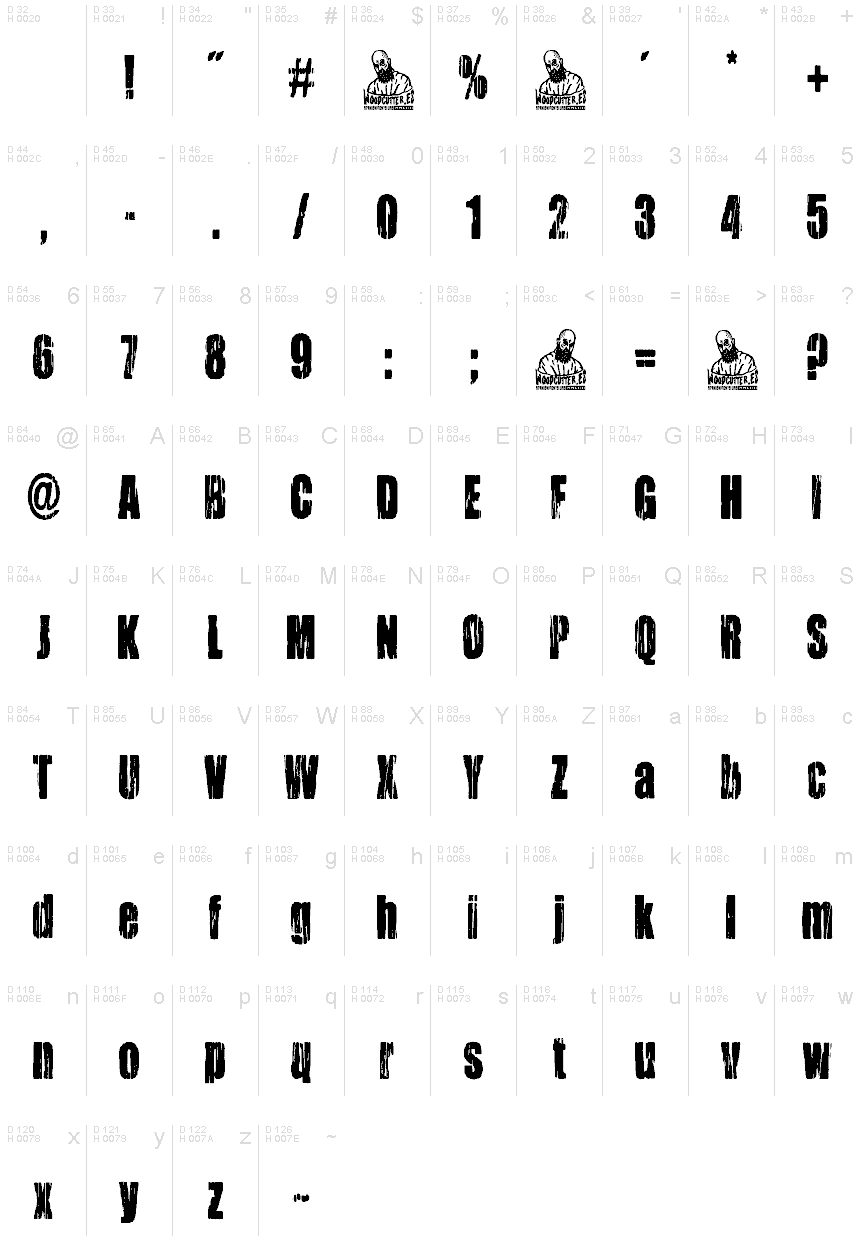
Niño Prodigio
Niño Prodigio font by Woodcutter Manero is a grunge-condensed display typeface with an eroded personality. The free display font looks rough and aged, and the condensed width makes it even more characteristic. Its damaged look matches urban environments where textures and typography like this one have always been a staple.